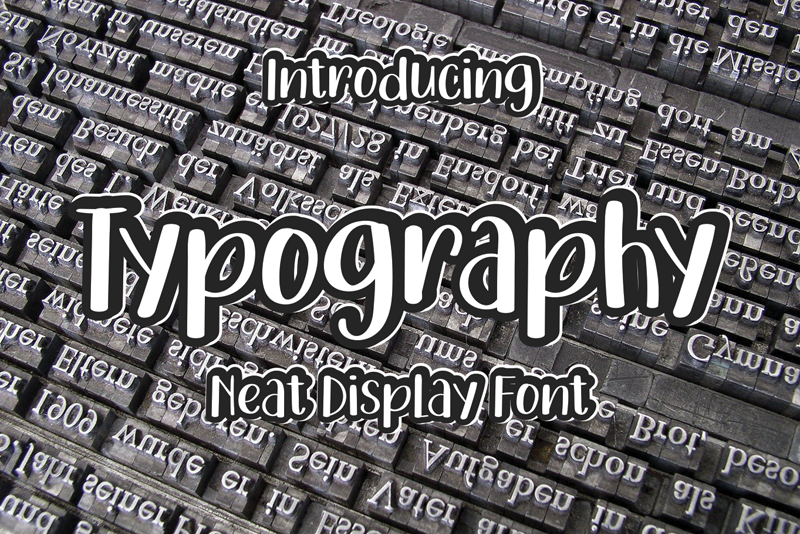
Preview and download Typography Font. Created by Luluk Surotul in Fancy Cartoon styles with Free for personal use license.
Typography is a cool looking and friendly display font. No matter the topic, this font will be an incredible asset to your fonts� library, as it has the potential to elevate any creation. Attention : Typography handwriting Font is prohibited to use this font for commercial purposes or for profit without the permission of the author/admin, without being known to use this font without permission, will be subject to sanctions 5x the specified price. This font is used only for demos (Demo license) If you want to use this font for commercial use please contact email: elllulukstudio123@gmail.com or click the link below: https://www.creativefabrica.com/product/typography-6/ref/761303/ If you want to see more other fonts, please click: https://www.creativefabrica.com/designer/el_hotcig Any donations are very appreciated. Paypal account for donation: https://www.paypal.com/paypalme/luluk783 thanks. |